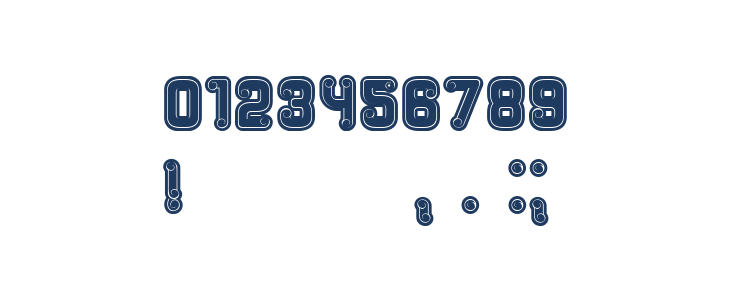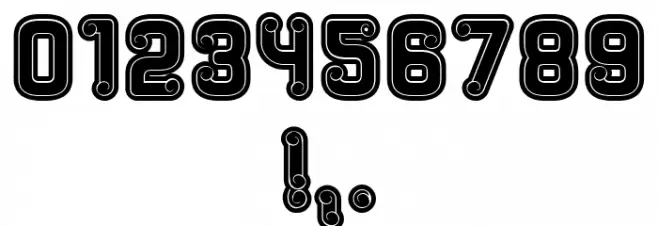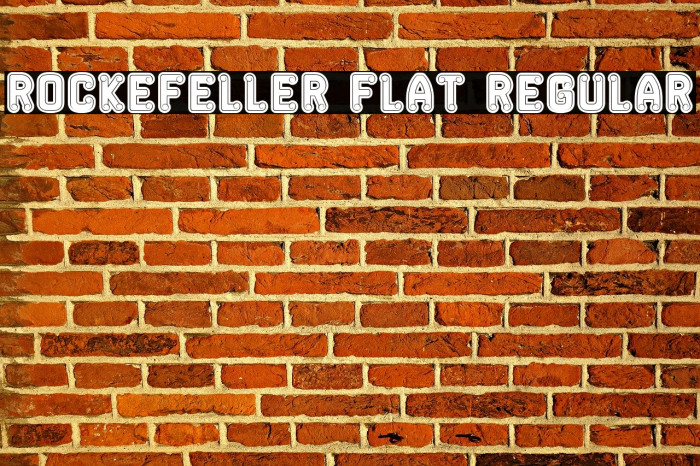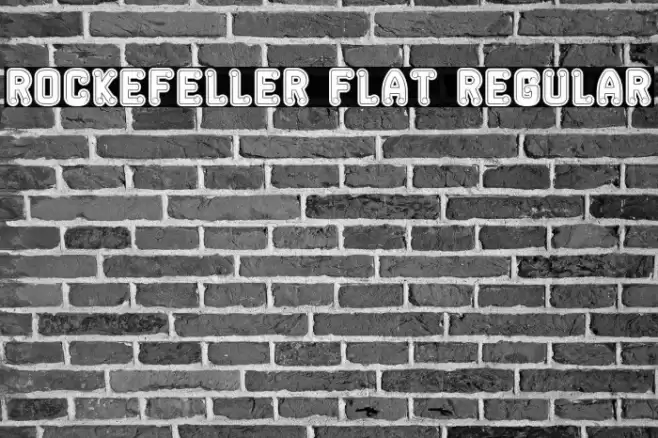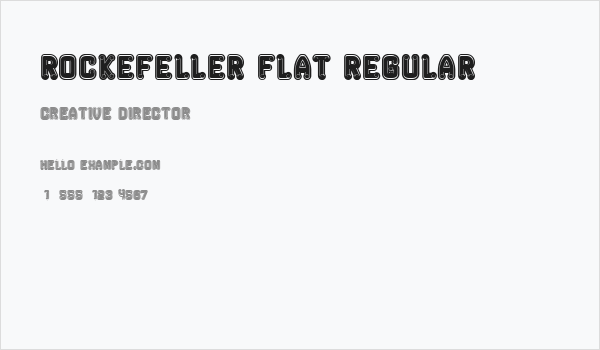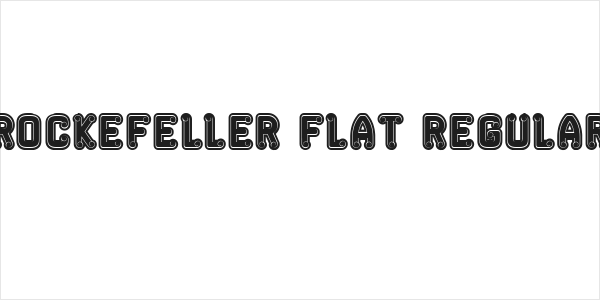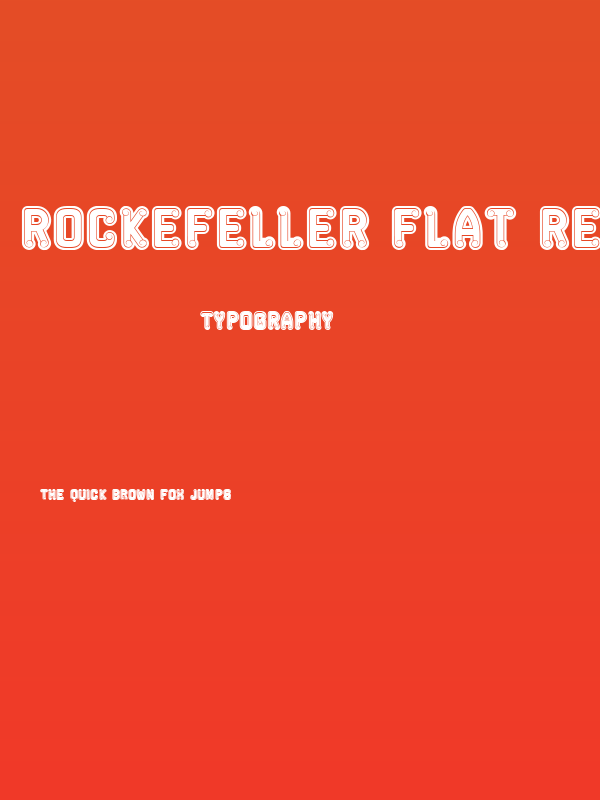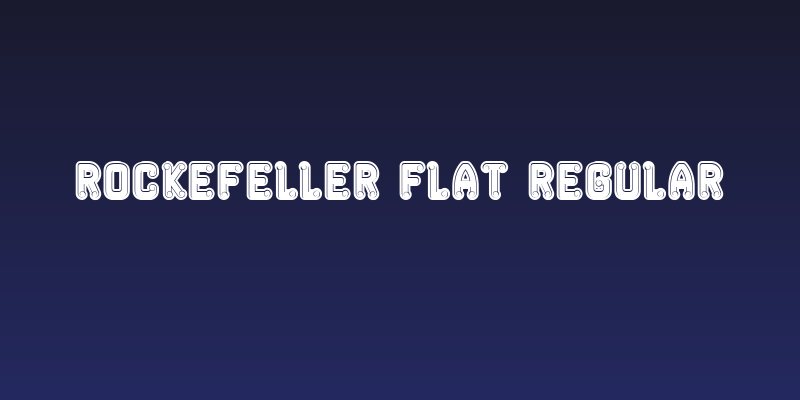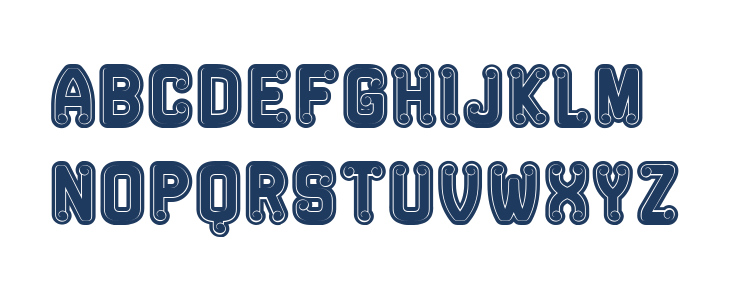
Rockefeller Flat Regular Font
Rockefeller Flat Regular Description
This font features a bold, decorative style with a unique outline and inline design that creates a striking visual impact. Each character is crafted with a double-layered effect, combining a solid outer border with a thinner inner line, giving it a dimensional appearance. The rounded terminals and consistent stroke width contribute to its playful and modern aesthetic. The font maintains a uniform height across all characters, ensuring a balanced and cohesive look. Its distinct style makes it ideal for eye-catching headlines and creative projects where a bold statement is desired.